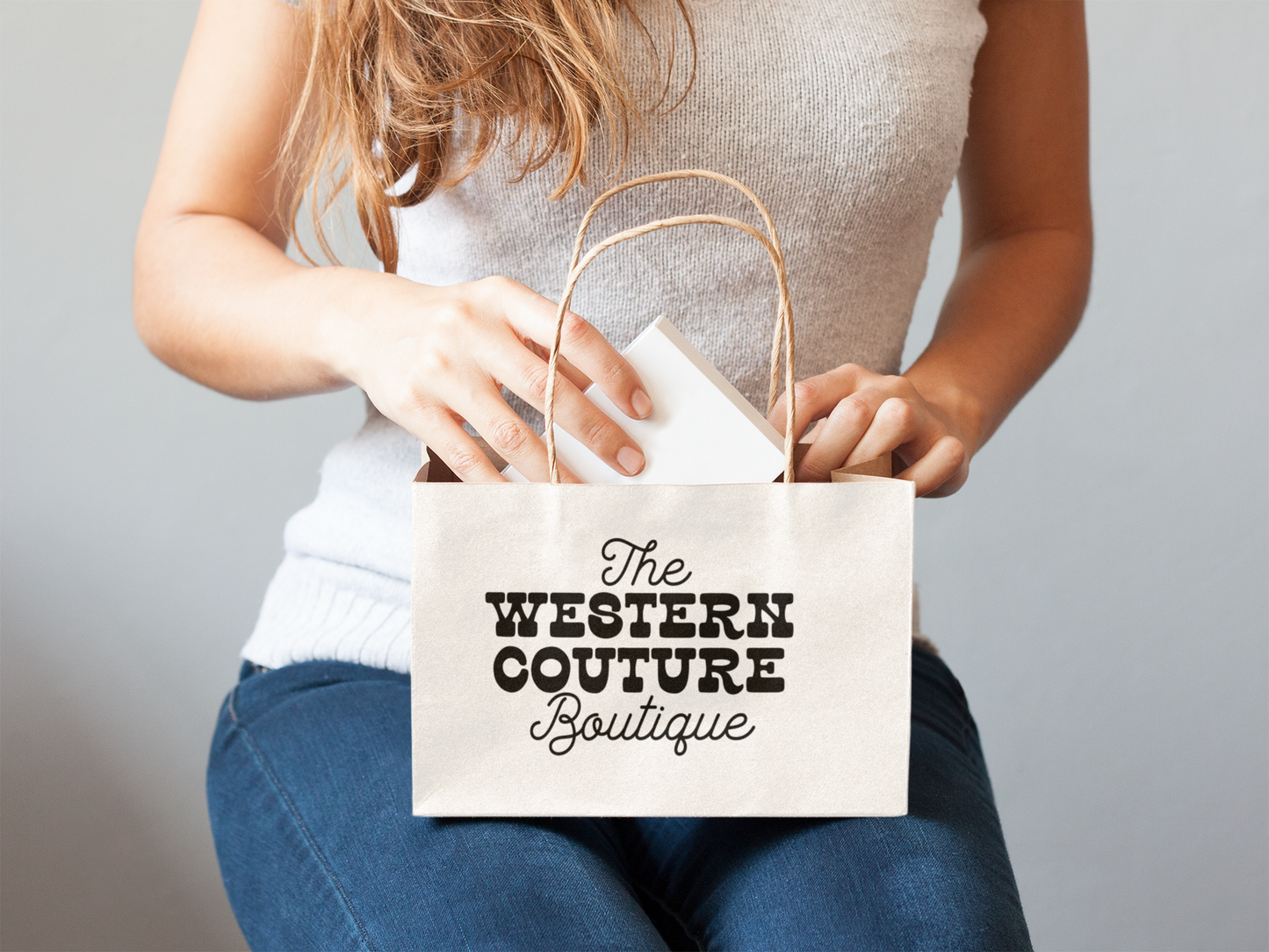
Howdy Harper Handwritten Western Font
This is a cute handwritten western font perfect for logos, marketing materials, t-shirts, stationery, and other product designs!